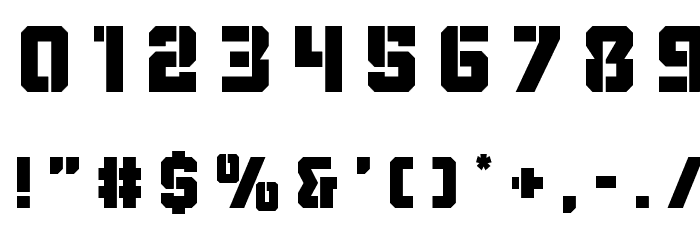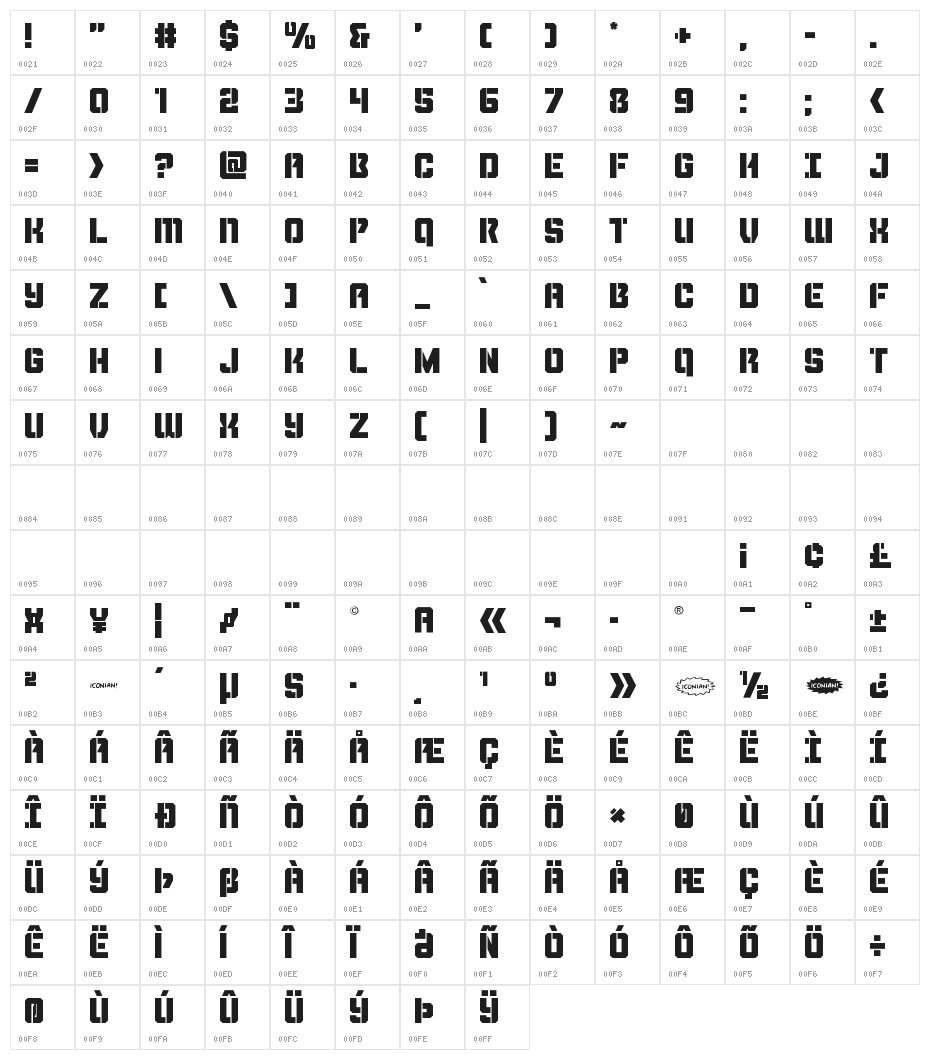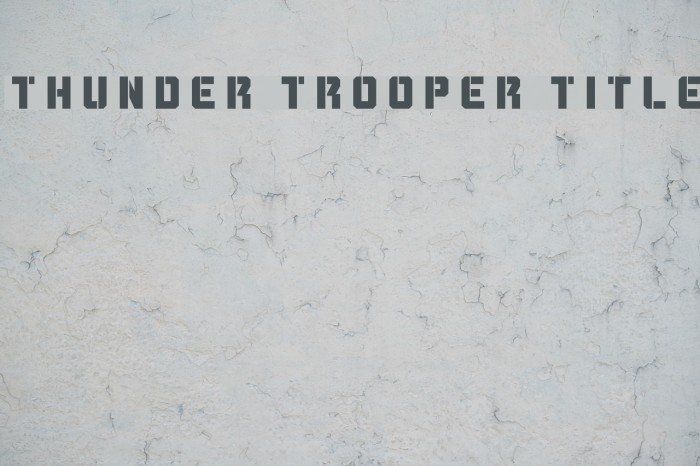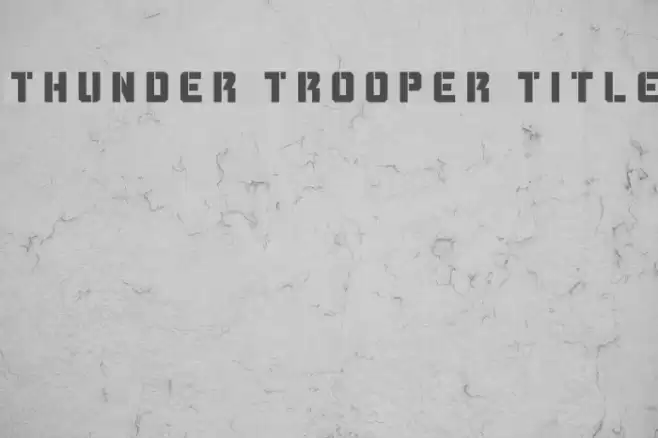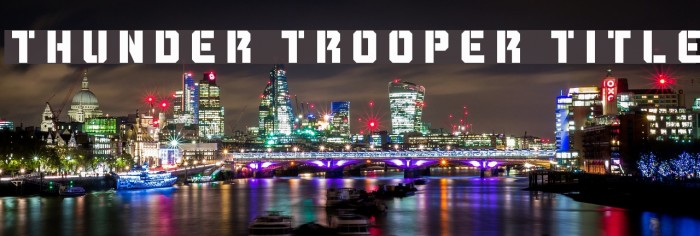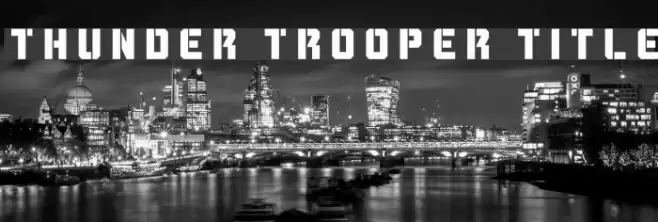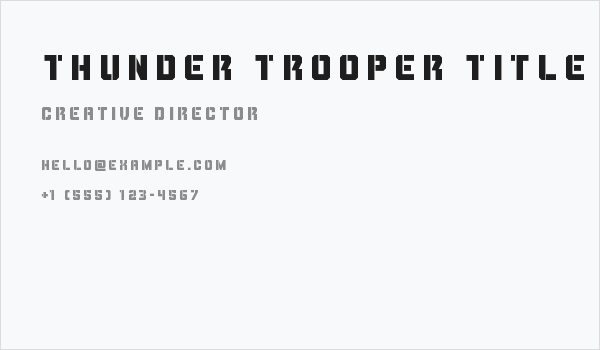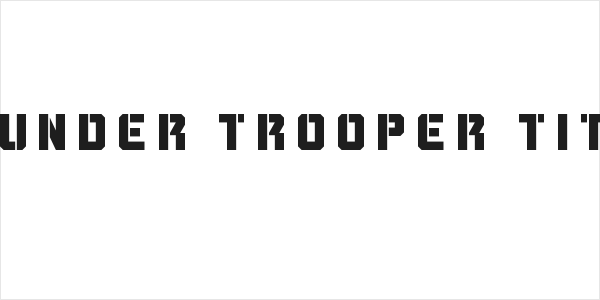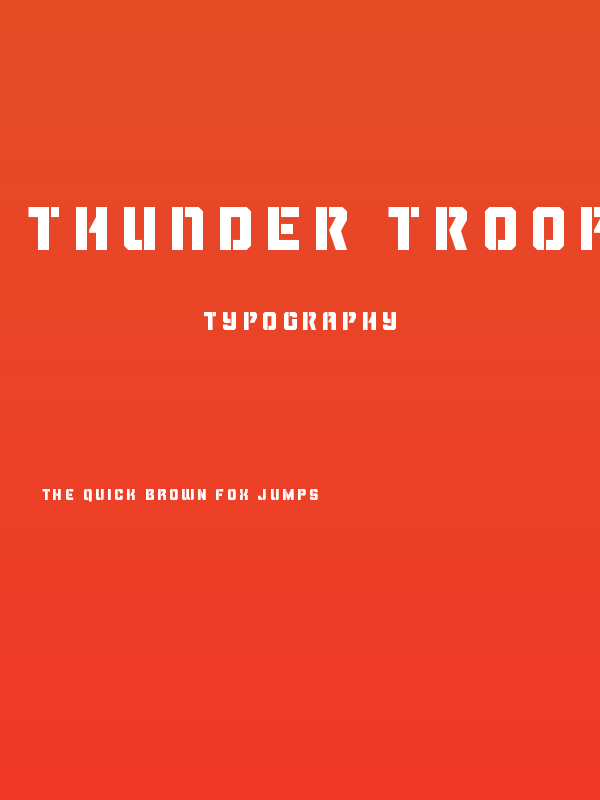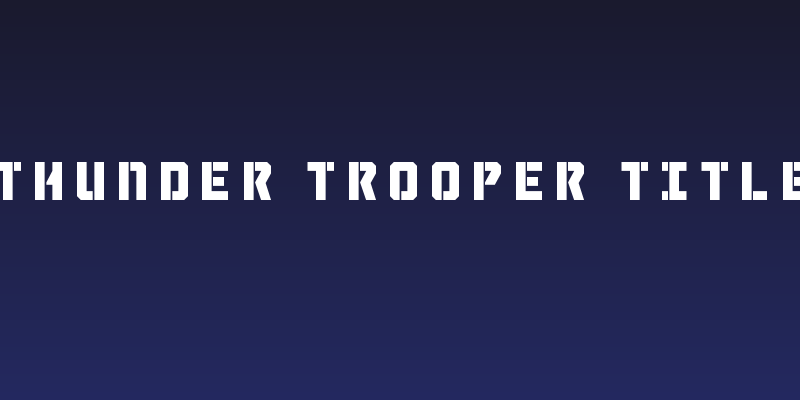
Thunder Trooper Title Font
Thunder Trooper Title Description
This font features a bold, geometric design with a futuristic and industrial feel. The characters are constructed with sharp angles and straight lines, creating a sense of strength and modernity. The uppercase letters are particularly striking, with a blocky appearance that commands attention. The numerals and special characters maintain this bold aesthetic, ensuring consistency across all glyphs. The font's design is reminiscent of stencil or military styles, making it ideal for projects that require a strong, impactful visual presence.
| Proposed Projects | Ideal for use in posters, logos, video game graphics, and any project requiring a strong, modern aesthetic. |